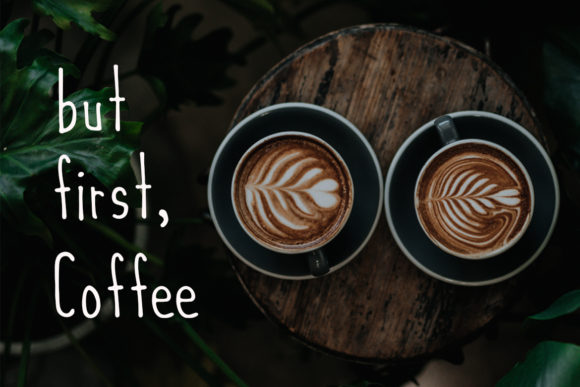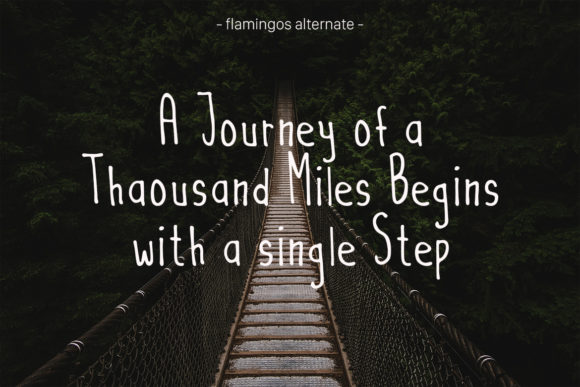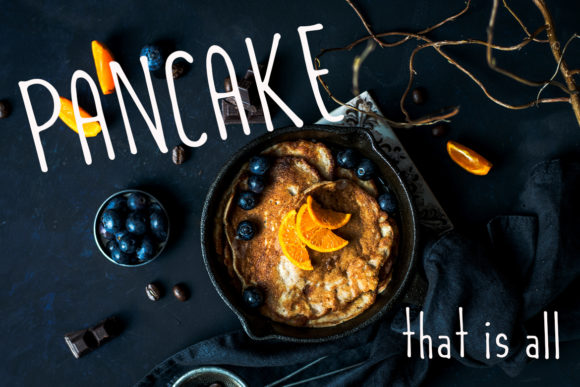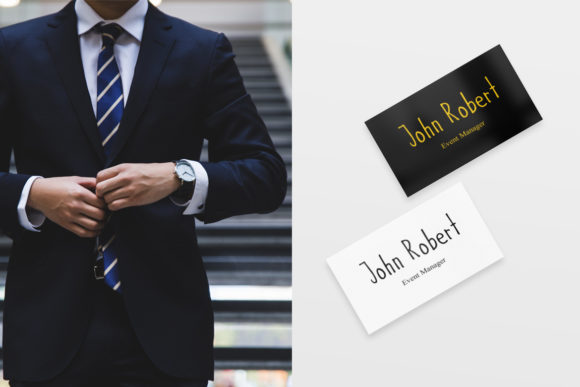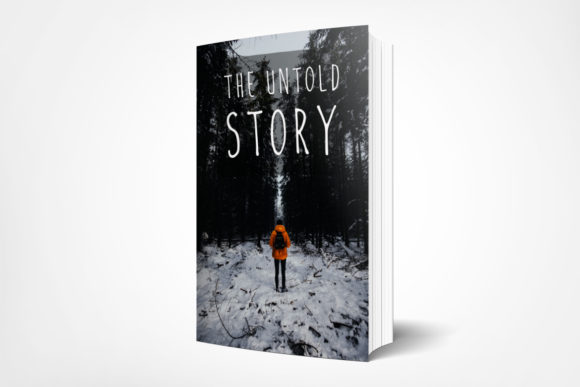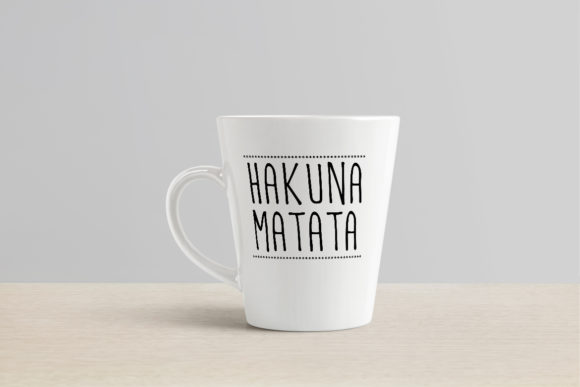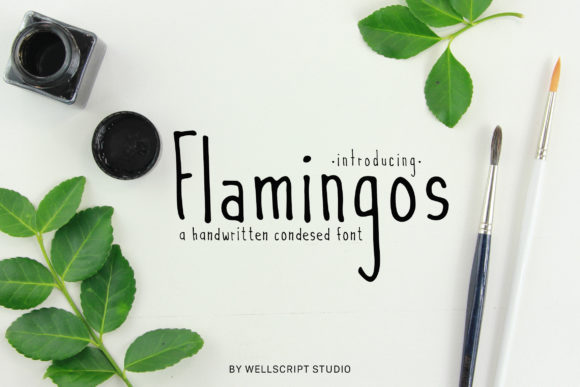
Introducing Flamingos Font: The Ultimate Script Font for Designers and Crafters
Are you tired of using the same old fonts in your designs? Look no further than Flamingos Font, a skinny and cute script font that’s perfect for a wide range of design ideas. With its unique charm and versatility, Flamingos Font is sure to take your designs to the next level.
What is Flamingos Font?
Flamingos Font is a script font that’s characterized by its slender and elegant lines. It’s a highly legible font that’s perfect for use in a variety of design projects, from logos and branding to invitations and social media graphics. The font’s unique charm lies in its quirky and playful feel, which adds a touch of whimsy to any design.
Features of Flamingos Font
So, what makes Flamingos Font so special? Here are just a few of its key features:
- Skinny and elegant lines: Flamingos Font features slender lines that give it a sleek and sophisticated feel.
- Cute and playful vibe: The font’s quirky and whimsical feel makes it perfect for designs that need a touch of personality.
- Highly legible: Despite its slender lines, Flamingos Font is highly legible, even at small sizes.
- Versatile: Flamingos Font can be used in a wide range of design projects, from logos and branding to invitations and social media graphics.
Design Ideas with Flamingos Font
So, what can you create with Flamingos Font? The possibilities are endless! Here are a few design ideas to get you started:
- Logos and branding: Use Flamingos Font to create a unique and memorable logo for your business or brand.
- Invitations and party decor: Add a touch of whimsy to your invitations and party decor with Flamingos Font.
- Social media graphics: Use Flamingos Font to create eye-catching social media graphics that will help your posts stand out.
- Planners and journals: Add a touch of personality to your planners and journals with Flamingos Font.
Tips for Using Flamingos Font
Here are a few tips for getting the most out of Flamingos Font:
- Experiment with different colors: Flamingos Font looks great in a variety of colors, so don’t be afraid to experiment and find the perfect hue for your design.
- Pair with bold fonts: Pair Flamingos Font with bold fonts for a striking contrast that will make your design stand out.
- Use in combination with graphics: Flamingos Font looks great in combination with graphics and illustrations, so don’t be afraid to get creative.
In conclusion, Flamingos Font is a versatile and charming script font that’s perfect for designers and crafters. With its unique charm and highly legible lines, it’s the perfect choice for a wide range of design projects. So why not give Flamingos Font a try and see what amazing designs you can create?